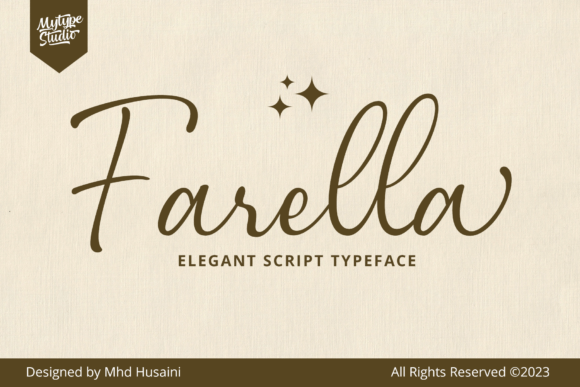
Step into a world of refined elegance and timeless charm with our exquisite Farella Font, a script font that captures the essence of beautiful calligraphy. With its flowing curves, delicate strokes, and stylish flourishes, this font exudes sophistication and adds a touch of magic to your creative projects.
With Farella Font, your words will dance across the page like a graceful ballet. Whether you're crafting wedding invitations, designing branding materials, or embarking on any project that demands a hint of timeless charm, this font will elevate your typography to new heights. Immerse yourself in the artistry of Farella Font and let your imagination soar.
Indulge in the allure of flowing curves that mimic the graceful strokes of a master calligrapher. Each letter, meticulously crafted, carries a story of elegance and refinement. Farella Font breathes life into your designs, adding a layer of sophistication that captivates and enchants.
Embrace the power of Farella Font and transform your creative visions into breathtaking realities. Its versatility knows no bounds, making it the perfect choice for a wide range of projects. From wedding invitations that radiate timeless romance to branding materials that exude professionalism, Farella Font adapts seamlessly to your every need.
Unleash the creative potential within you and let Farella Font be your guiding light. As you explore the endless possibilities of this magnificent script font, you'll discover a world of beauty and elegance that will leave you spellbound.